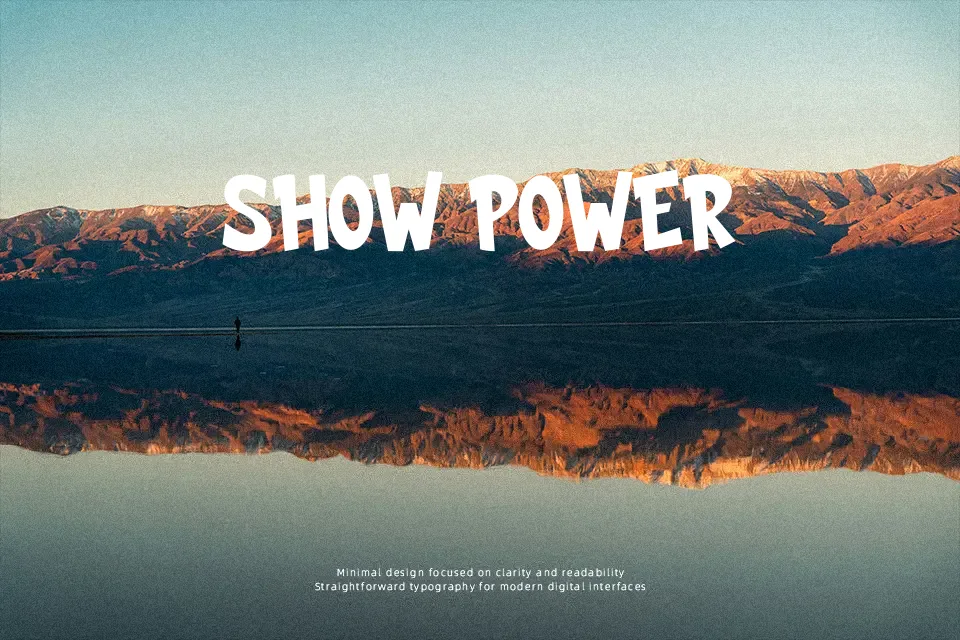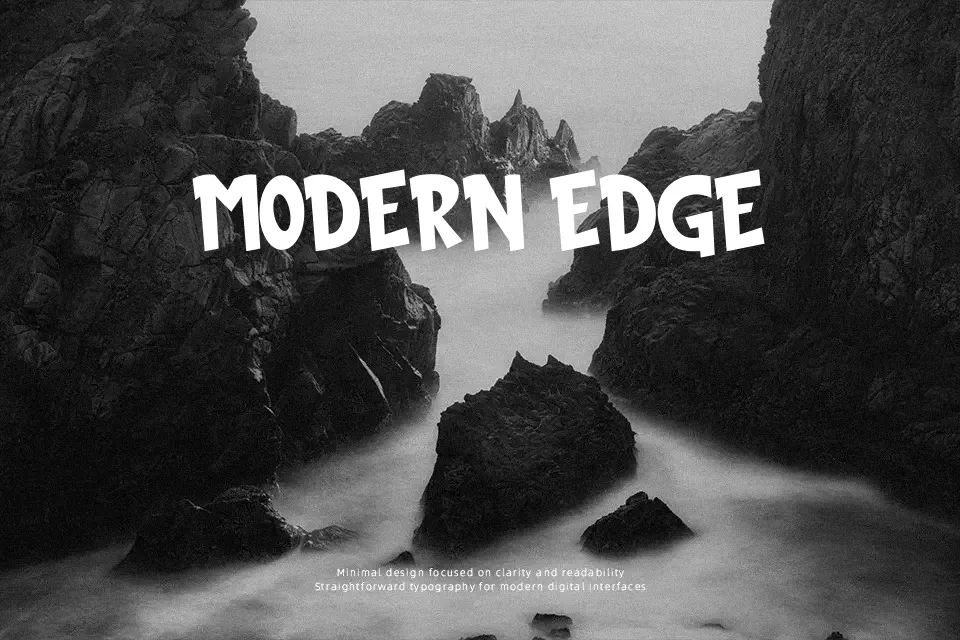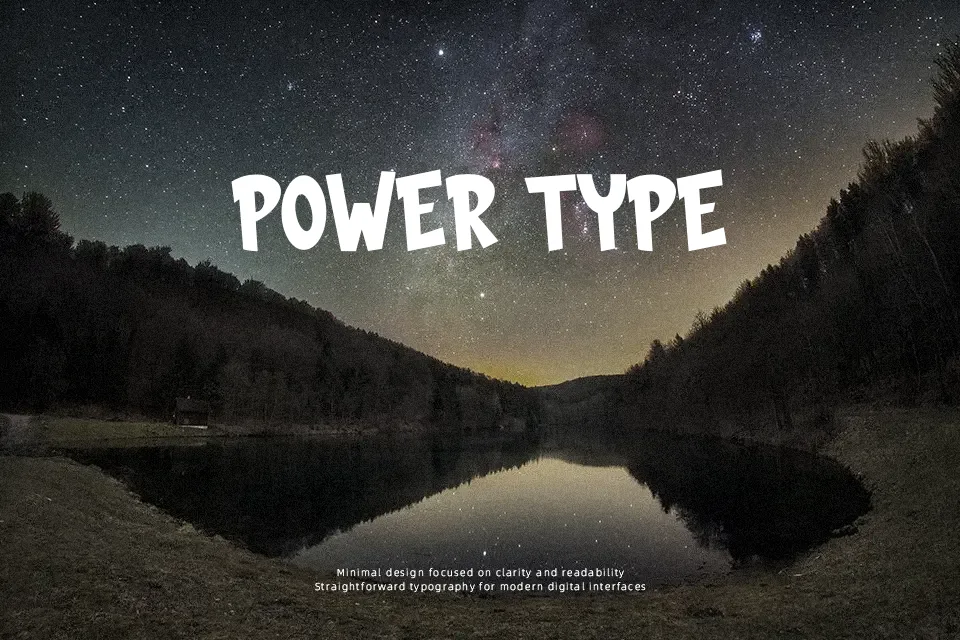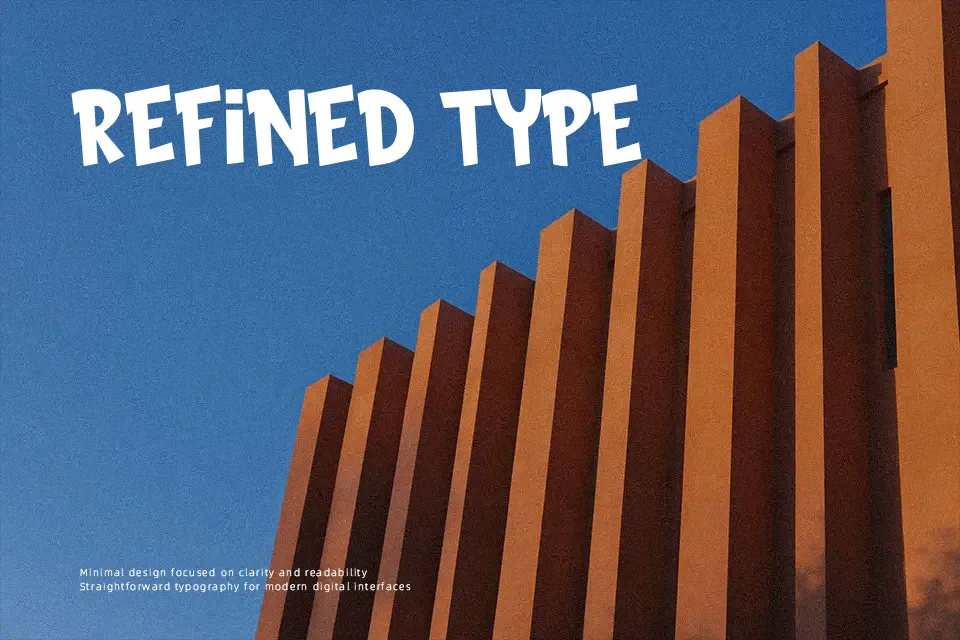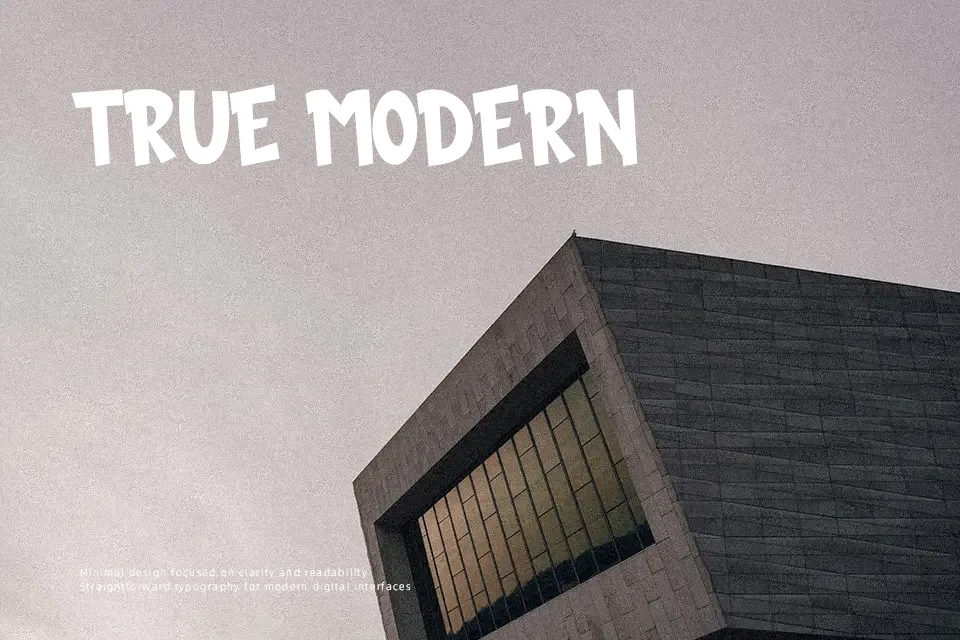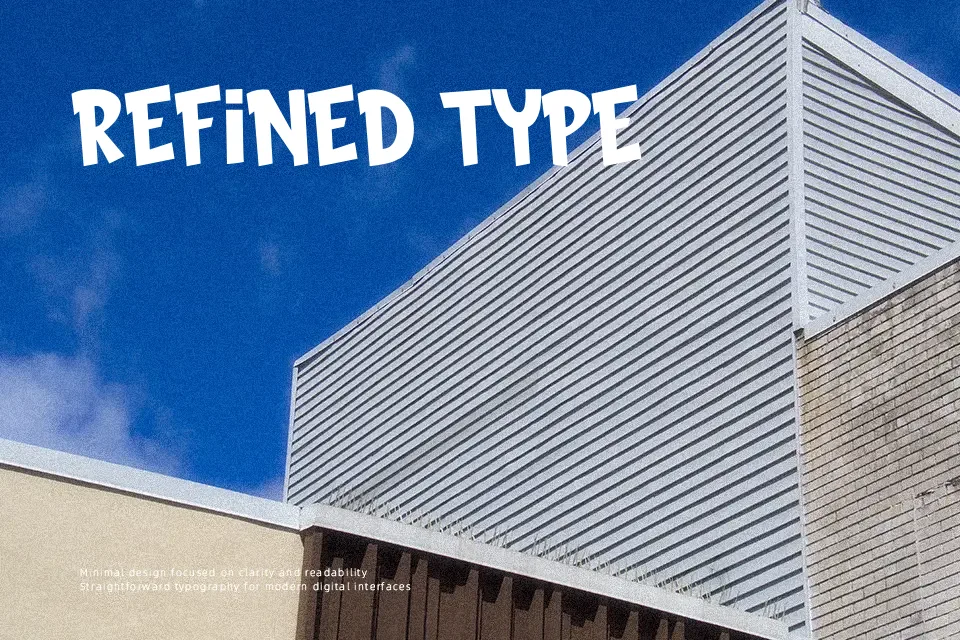
Brick Comic Font
Designed by MaknaStudio
Brick Comic Font brings a bouncy comic look with thick, rounded strokes, loose spacing, and slightly uneven character shapes that read as casual and approachable. It feels more decorative than functional, so it shines in short titles, children’s joke graphics, playful stickers, and cheerful YouTube thumbnails rather than dense reading. The letters have enough weight to stand out over bright backgrounds, but the informal rhythm can become tiring or chaotic if you push it into long paragraphs or serious editorial layouts. If you like classic comic and cartoon fonts but want something a bit chunkier and more whimsical, this is a solid option to test in your display toolkit.
kids joke graphics and memes
playful event posters and flyers
lighthearted social media titles
cartoon-style branding accents
long paragraphs or body text
serious news or editorial layouts
minimalist or highly technical interfaces